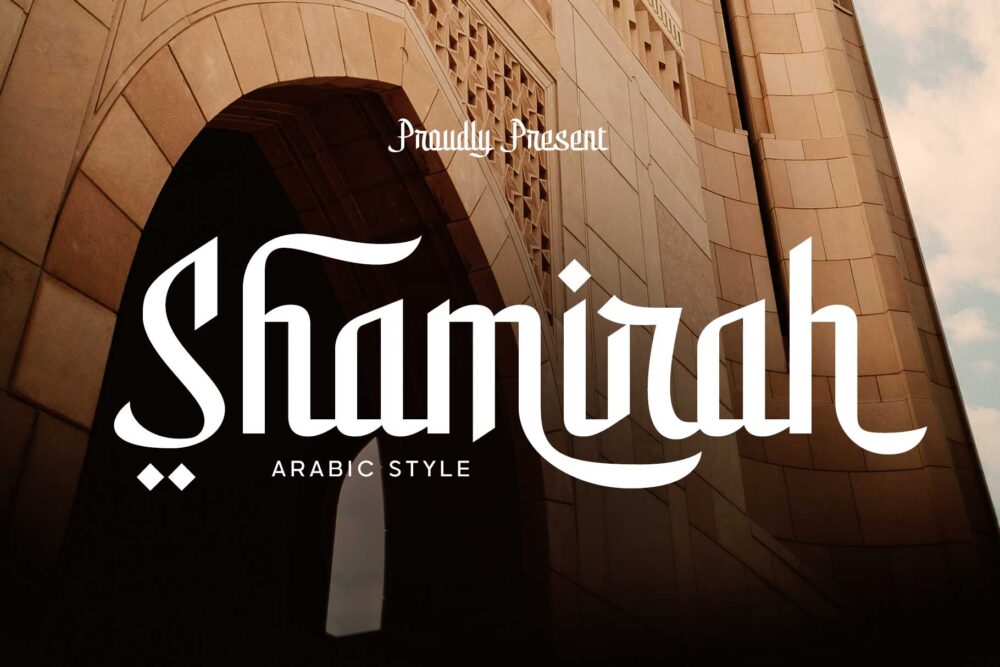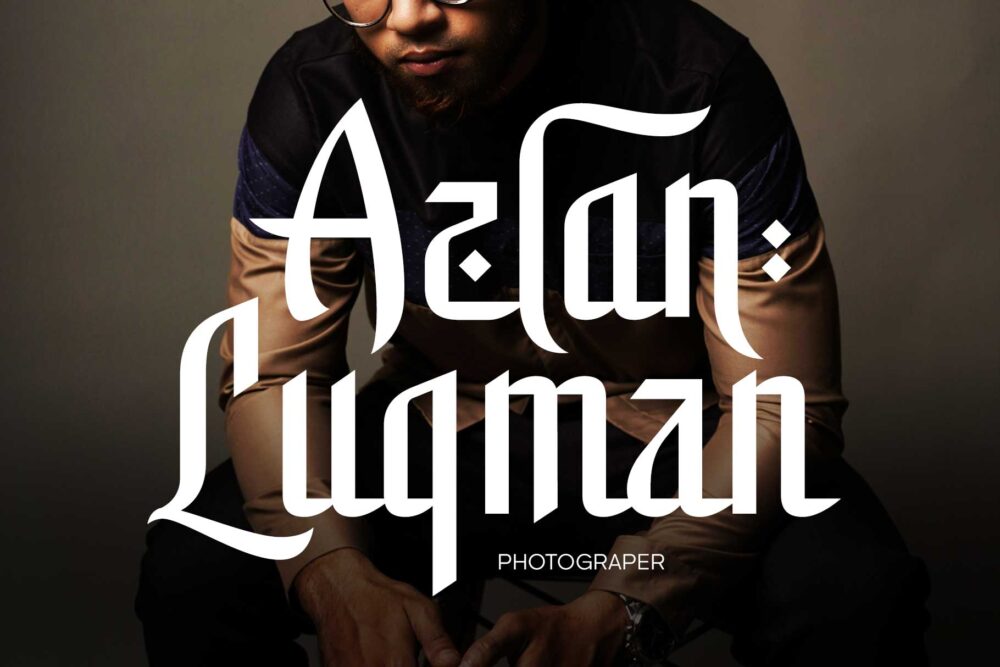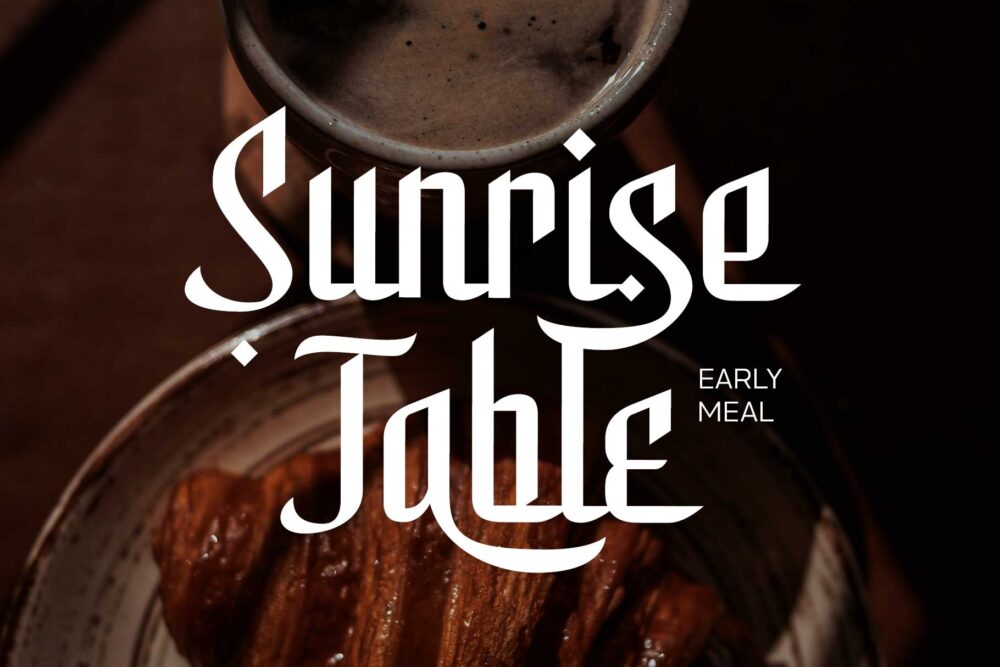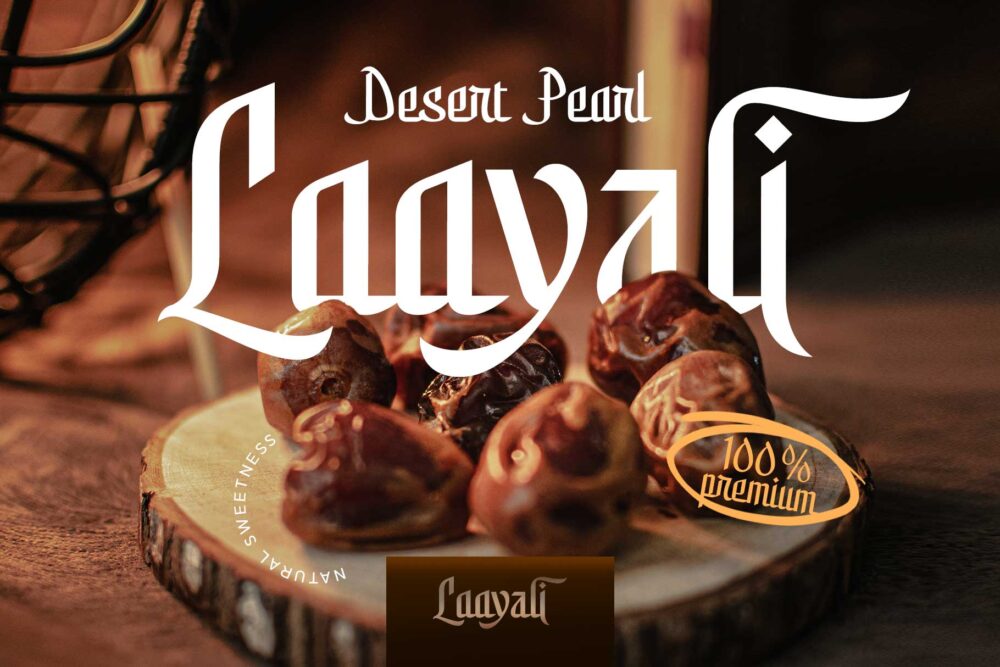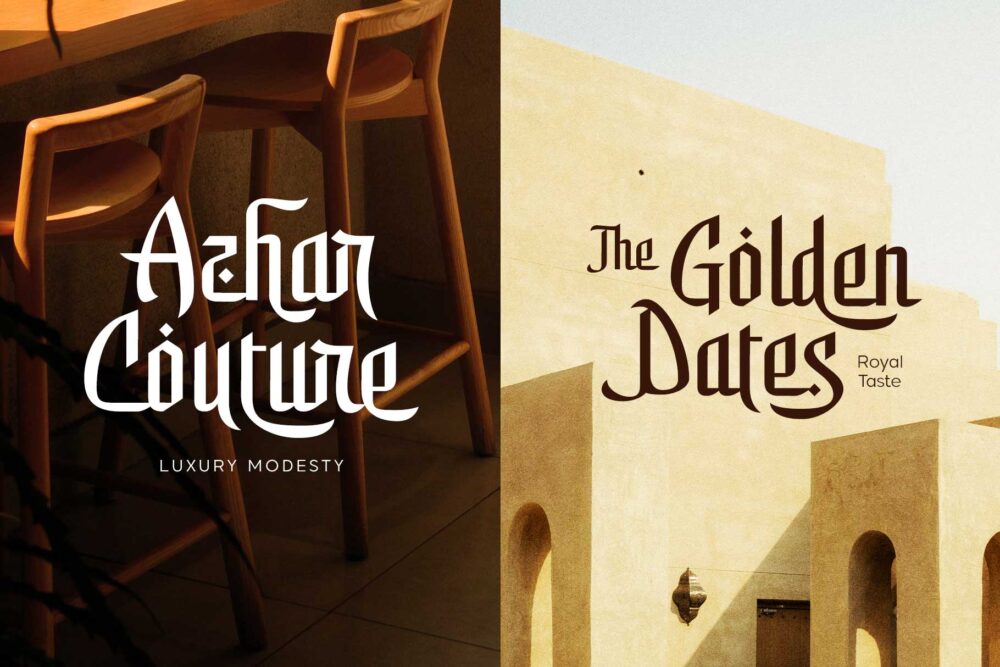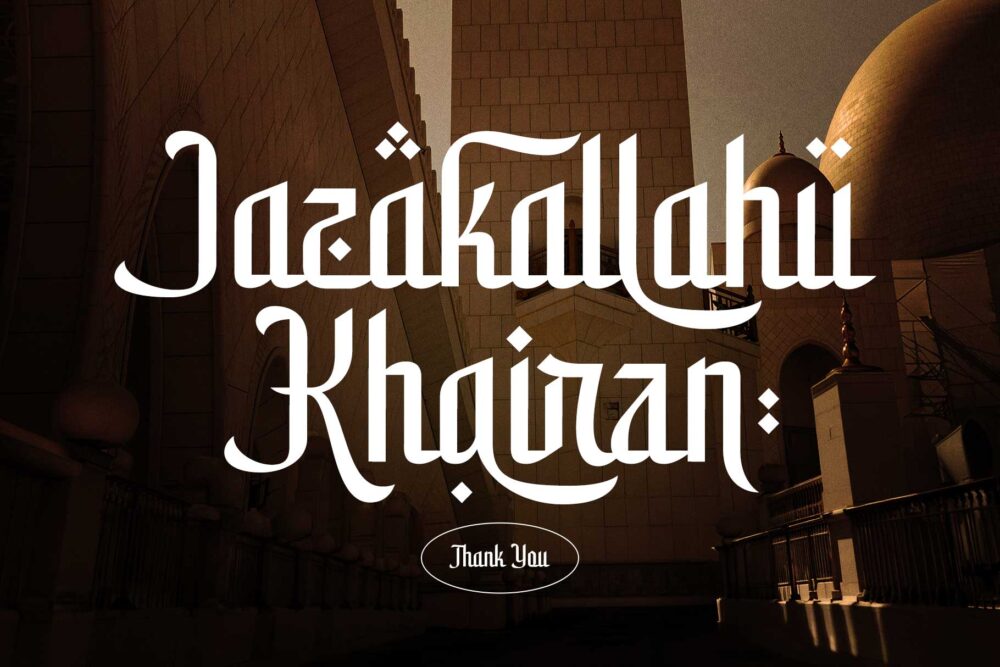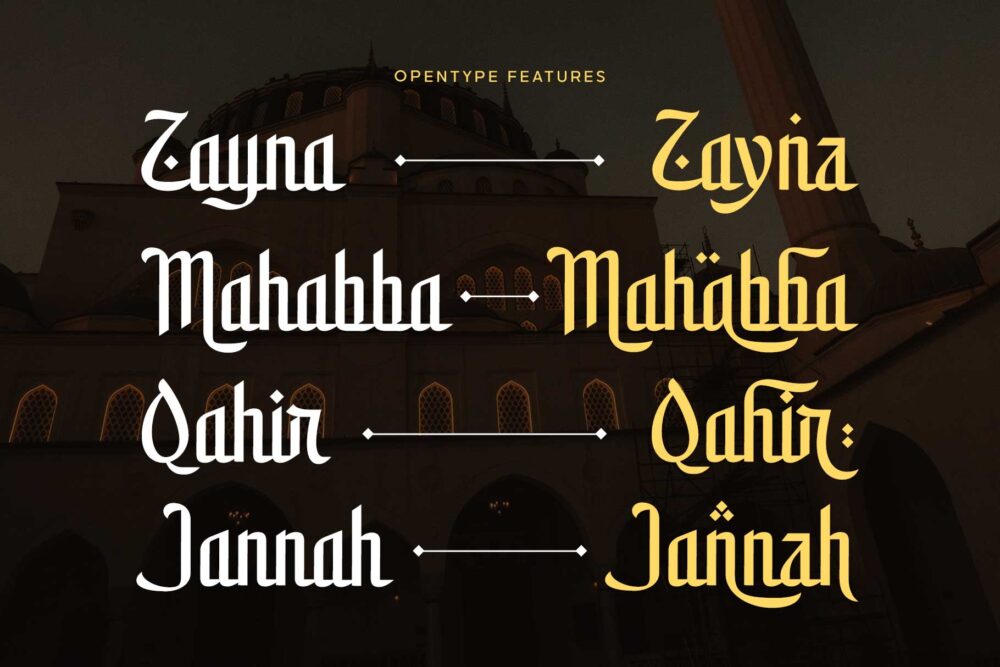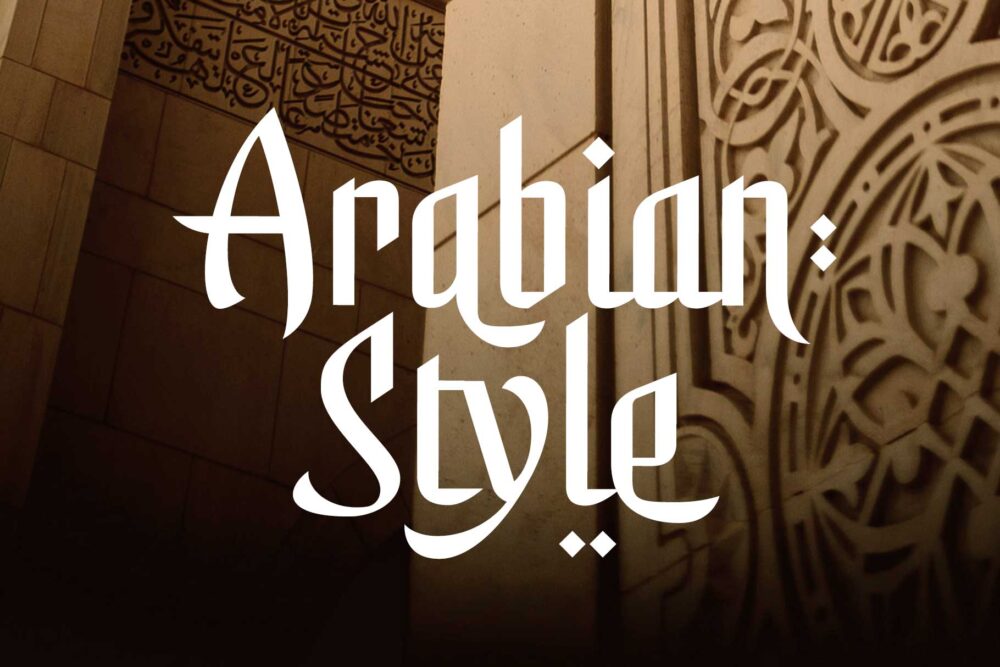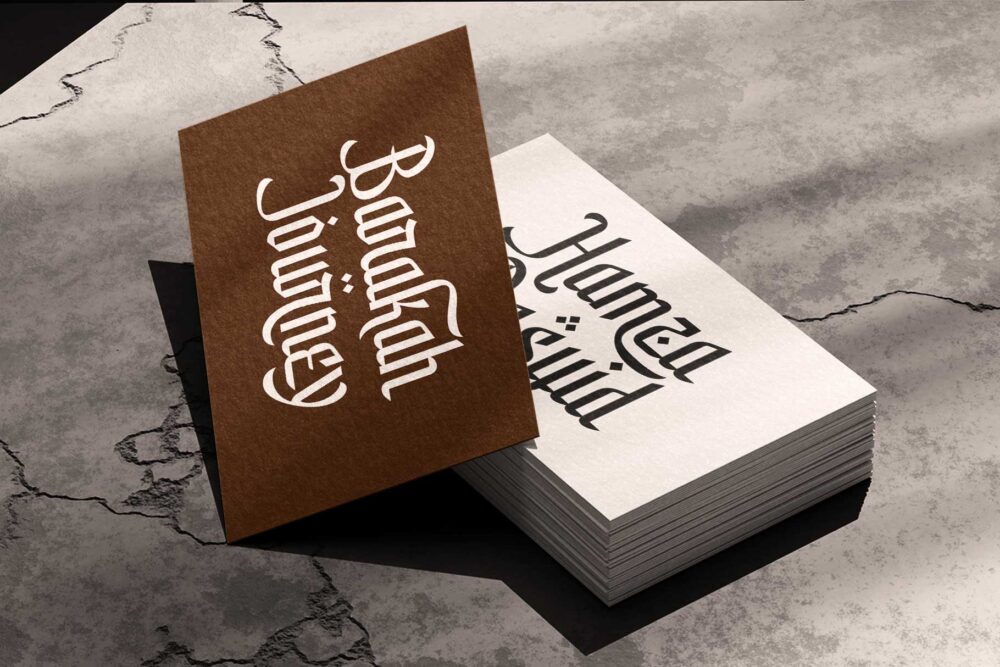
Elegant Arabic-inspired display font named Shamirah featuring sharp details, graceful curves, and luxury branding applications on architecture, perfume packaging, food branding, and editorial designs.
Shamirah
Shamirah was born from the quiet beauty of Middle Eastern architecture, where soft light touches stone walls and elegant arches create a sense of calm. Inspired by Arabic aesthetics, this display font blends sharp details with flowing curves to capture both tradition and grace.
Every letter carries a feeling of confidence and serenity. The refined shapes and delicate terminals create a balanced rhythm, allowing Shamirah to feel welcoming, comfortable, and effortlessly elegant.
Like the gentle arches and quiet courtyards that inspired it, Shamirah creates a harmonious rhythm in every composition. Its distinctive forms bring warmth and elegance, allowing words to feel inviting, refined, and naturally memorable.
Perfect for luxury branding, perfume packaging, cafés, fashion labels, editorial designs, Ramadan campaigns, and premium products, Shamirah turns every word into a warm and elegant statement filled with comfort, confidence, and timeless beauty.
Shamirah – Arabic Style Display Font